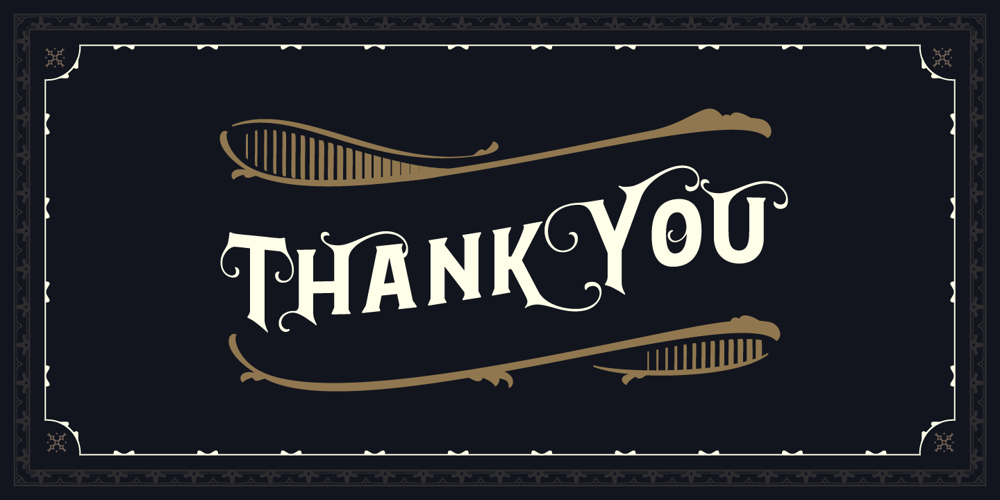
Bignord Vintage Font Family was designed by Adam Fathoni Haris and published by Adam Fathony. Bignord Vintage contains 2 styles and family package options. Bignord is a brand new font with a vintage look and style. It is inspired by vintage packaging and from typographic cover lettering. Bignord is available in up to 5 different stylistic elements for some letters so you can create a vintage feel from the swash of each letter. This font was created for designing covers, labels, posters, logos, branding, etc that need a vintage design feel. It also comes with Ornament Fonts that will support your design with a more vintage look.